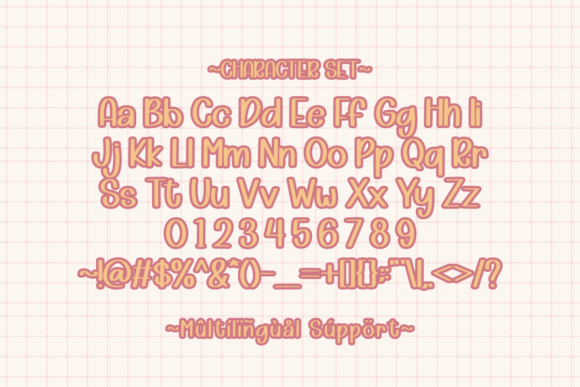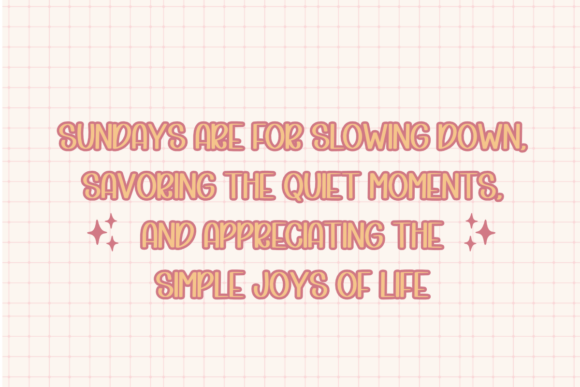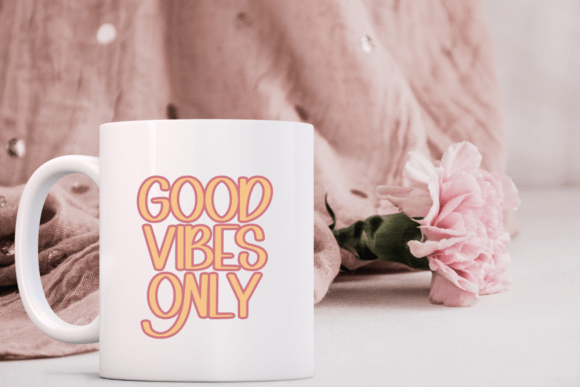
Happy Sunday Font
Happy Sunday is a fun and bold handwritten font that’s perfect for crafts, planners, KDP, stickers, greeting cards, and more. With its cute and friendly style, it works great for Cricut, sublimation, and creative DIY projects. Ideal for crafters, designers, and makers!